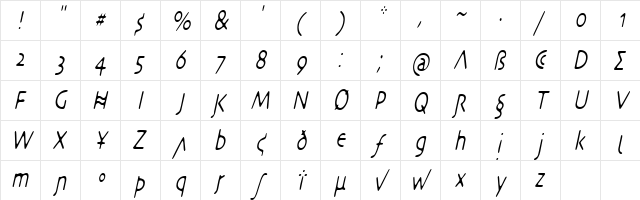
DesertCryptCondensed Oblique Font Preview
Design Context for DesertCryptCondensed Typeface
DesertCryptCondensed offers clean, dependable letterforms without strong stylistic allegiance, making it a practical choice for designers who need flexibility. Its italic angle brings a sense of urgency and motion to the letterforms. Its narrow stance lets it pack a punch even in space-constrained designs.
Pro Tip: Use DesertCryptCondensed for emphasis, pull quotes, and subheadings where its slanted energy can add rhythm to the layout.